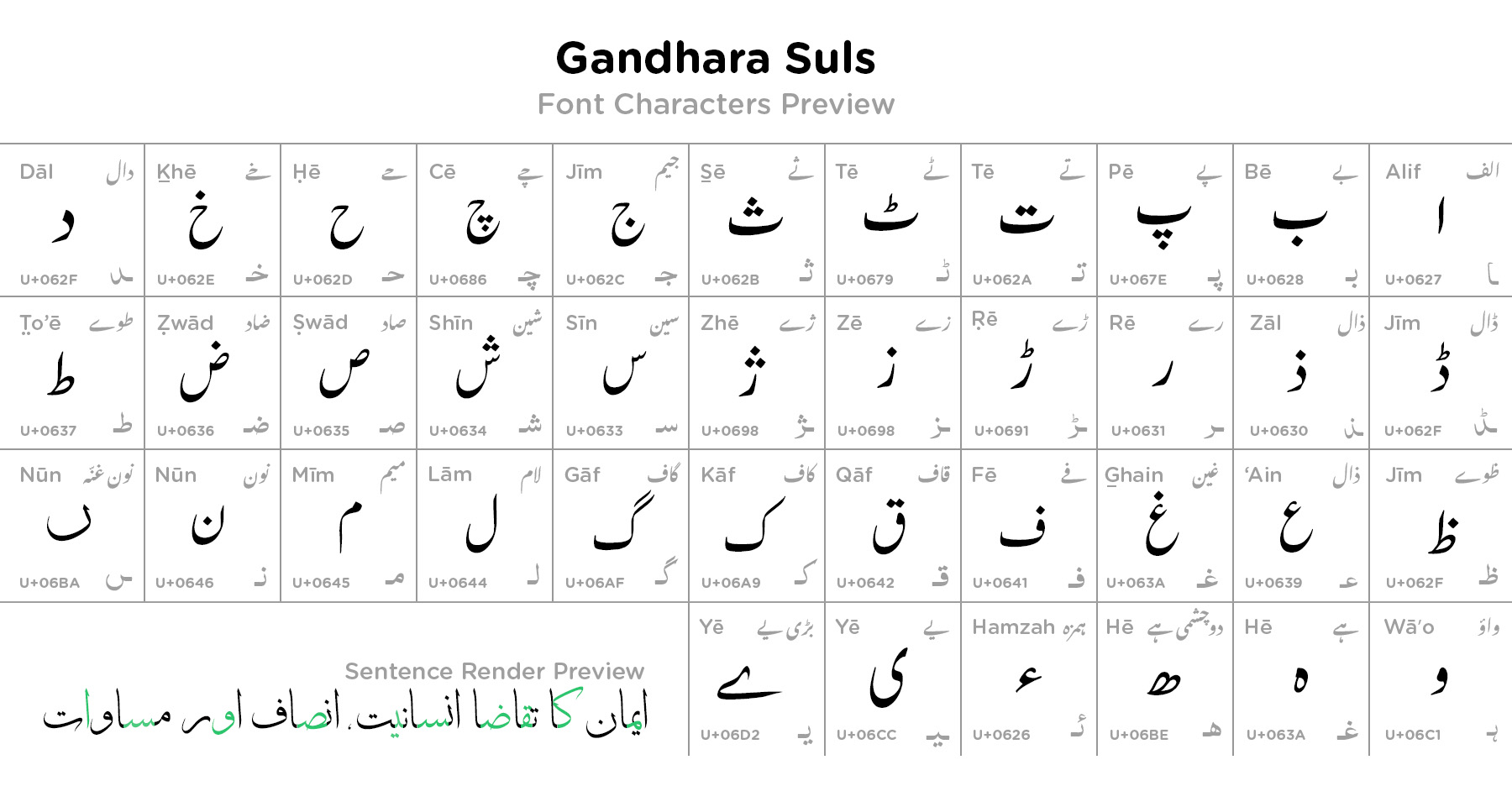
Gandhara Suls font, designed by Abdul Majeed Khan from Pakistan, is a decorative calligraphy typeface inspired by the traditional Thuluth script. Released on January 30, 2016, this font offers the elegance of Qalam writing with flowing letterforms and long curly terminals. With 141 characters and a remarkable glyph count of 1420, it offers extensive language compatibility, including Urdu, Arabic, Latin, Persian, and more. It is compatible with Unicode blocks such as Basic Latin, Latin-1 Supplement, Arabic, and General Punctuation. The thickness of the font varies, with thin flowing edges and slightly thicker strokes in the middle. The stroke of the font is dynamic, adding to its visual appeal.
The font style features decorative calligraphy with equal spacing, reminding us of Qalam writing. Its thin, long, pointy edges and rounded corners give it a distinct appearance. While legibility is high on screens, it may be challenging to read at smaller sizes due to its intricate design. Gandhara Suls is suitable for both longer and shorter texts, making it versatile for various applications. Ideal for calligraphy, Islamic text writings, decorative posts, and Arabic branding, the font adds elegance and sophistication to any project requiring a touch of traditional Arabic script. Its flowing letterforms and elongated curly terminals perfectly capture the Thuluth script’s essence.